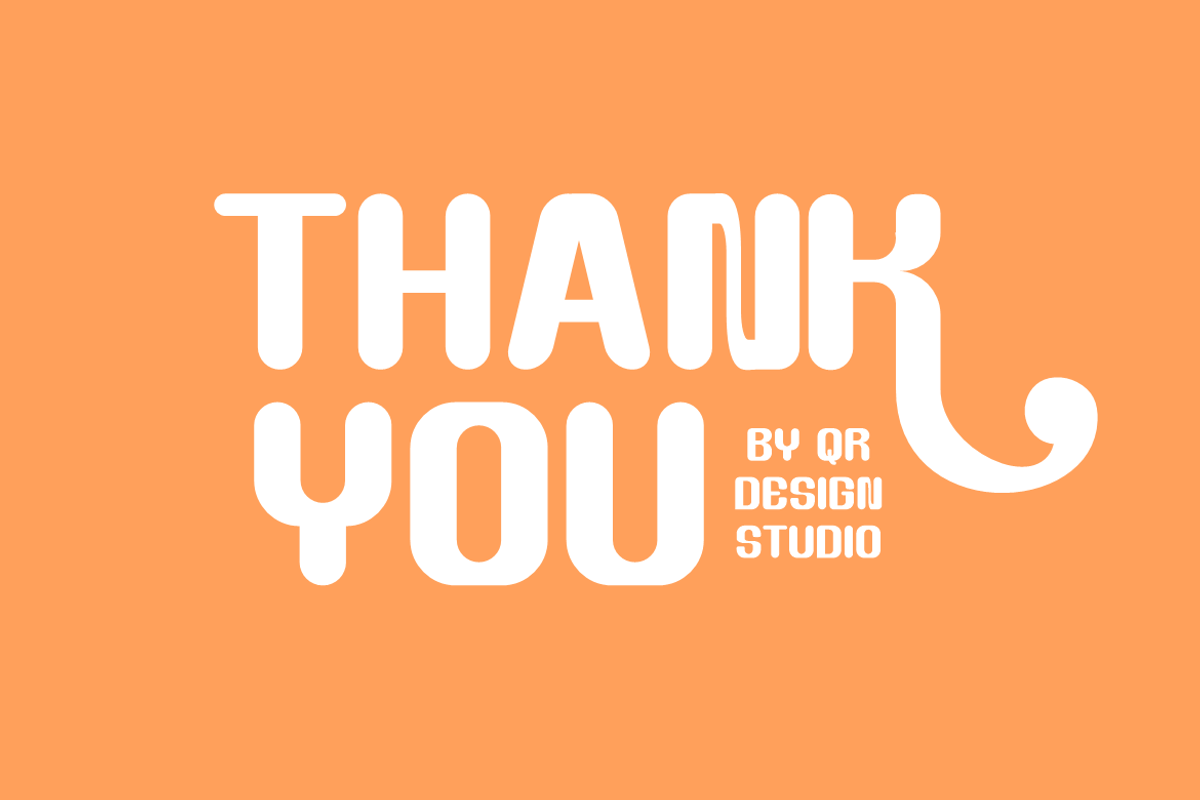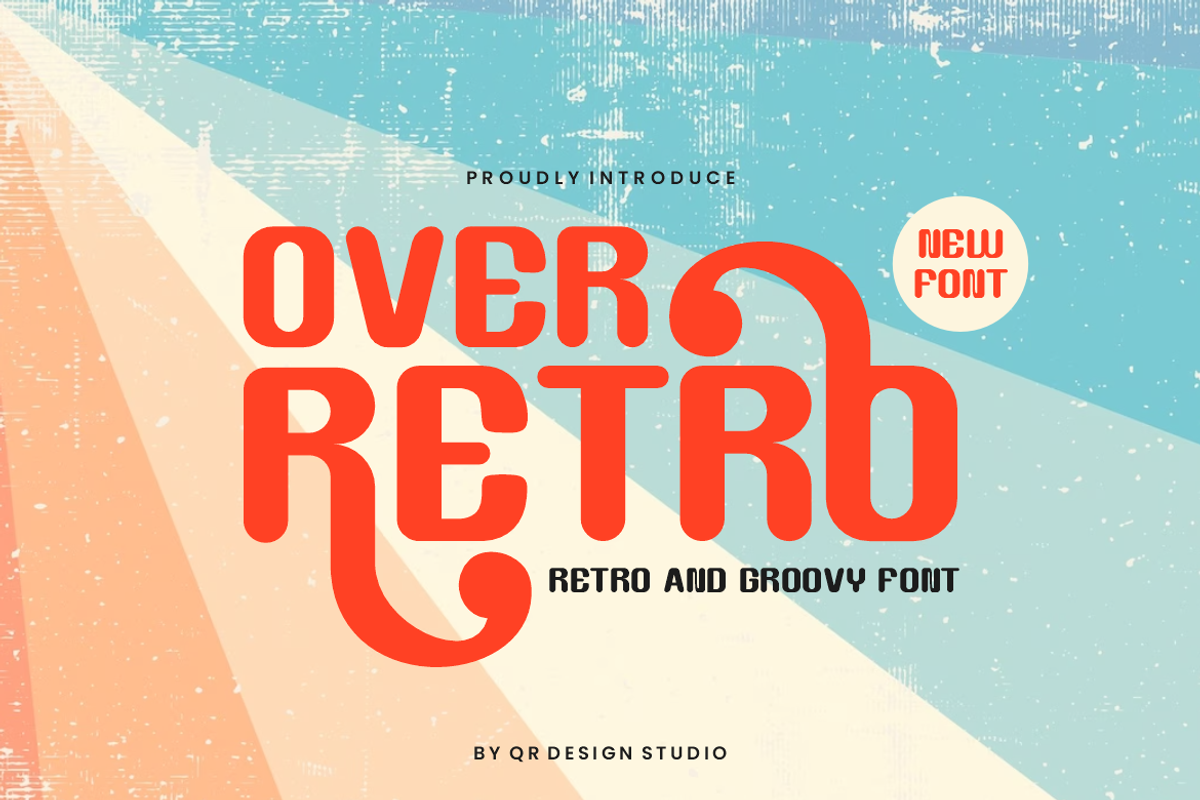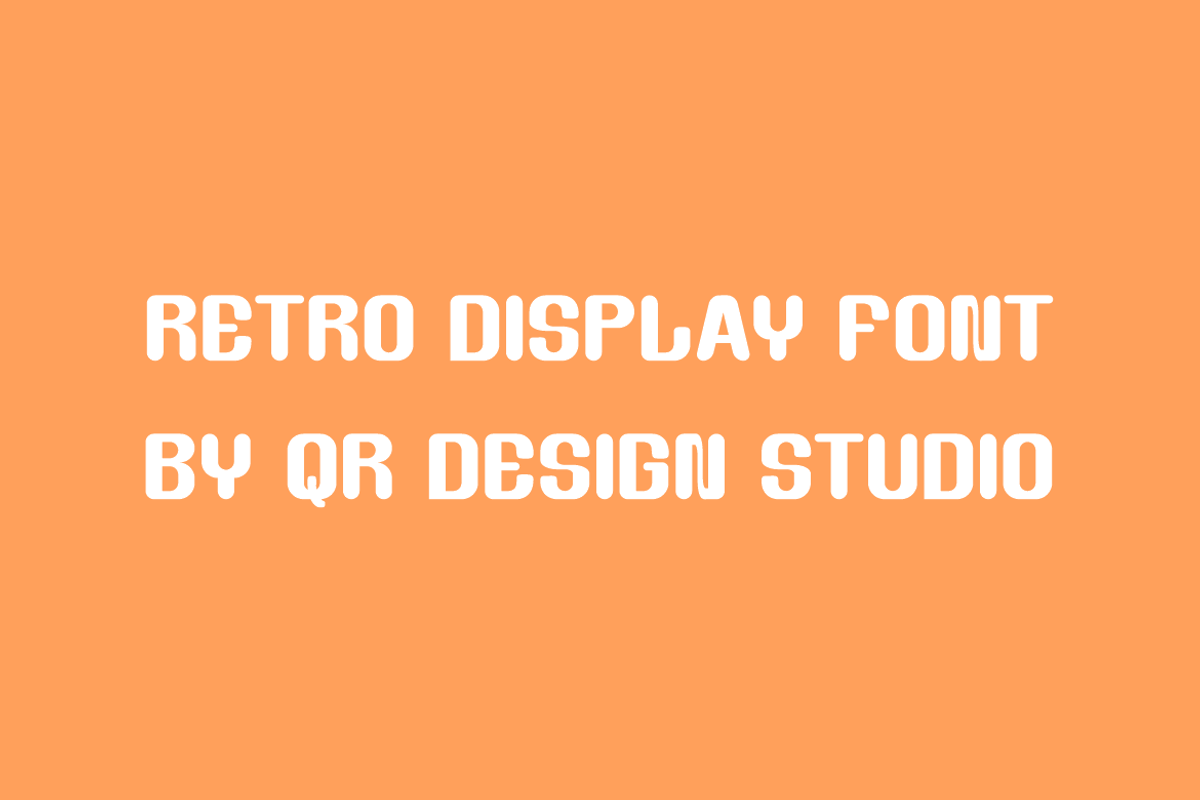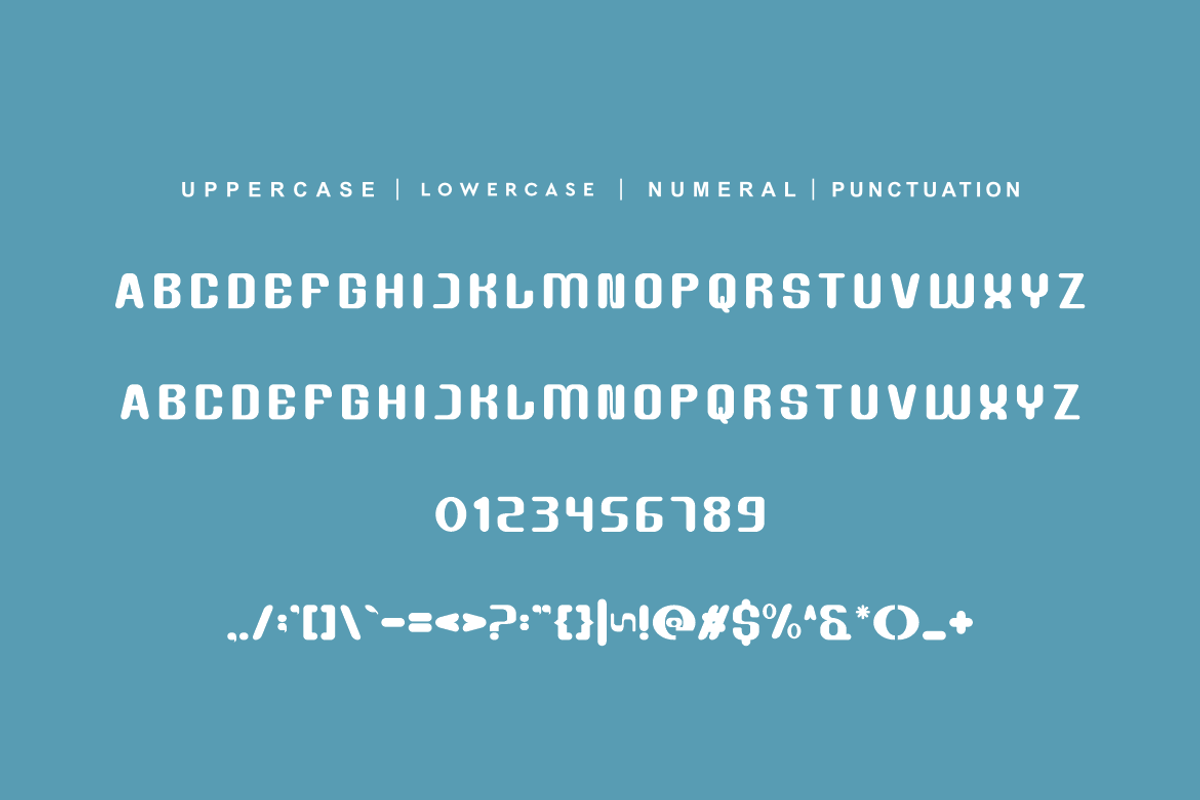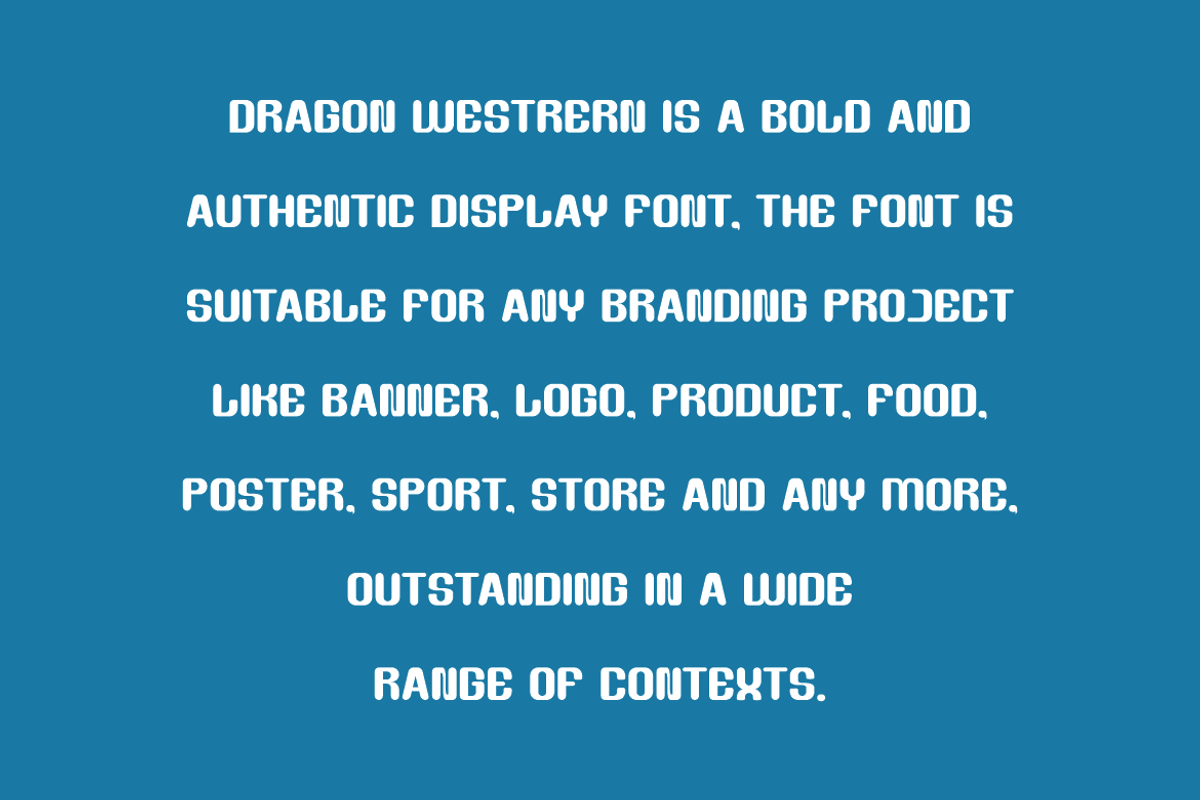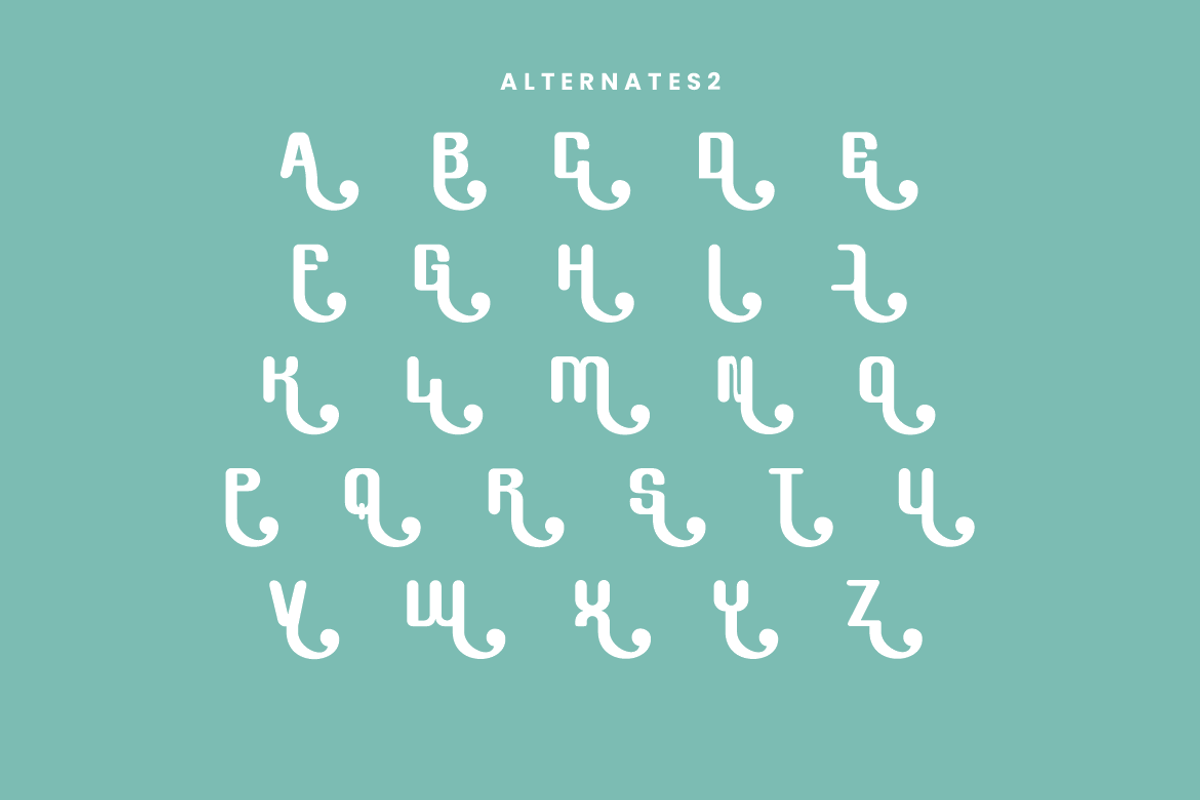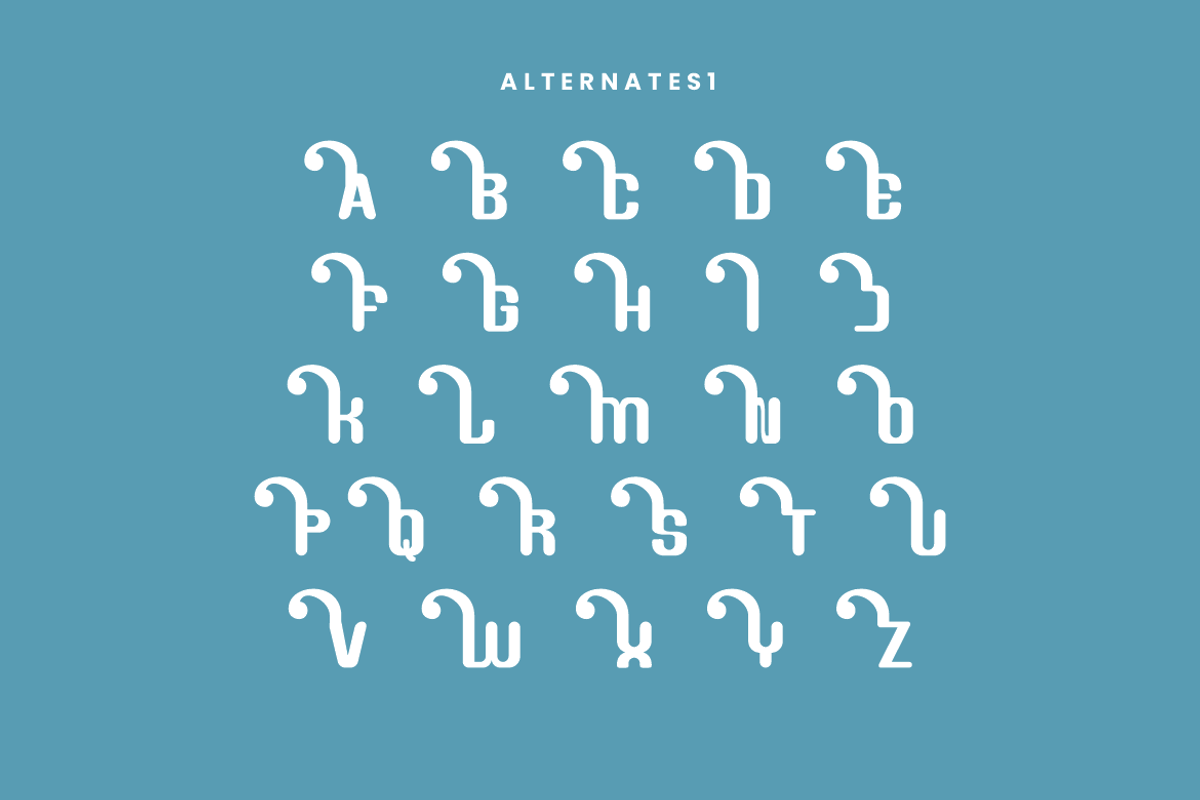
Over Retro - Vintage & Western Font
Over Retro - Vintage & Western Font is a bold and authentic display font. The font is suitable for any branding project like poster, logo, sport, and many more. Outstanding in a wide range of contexts.